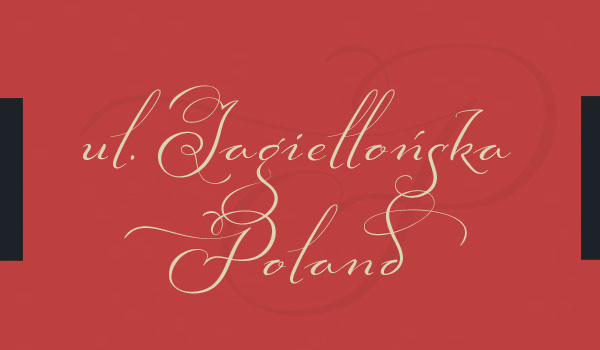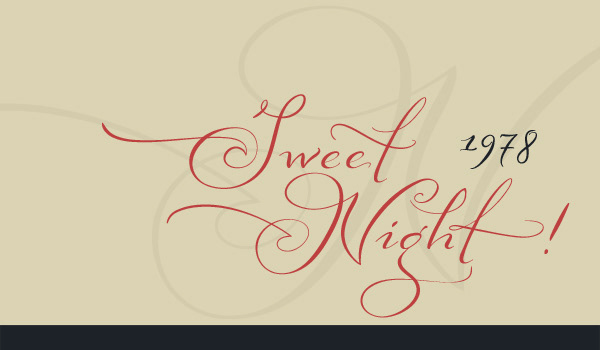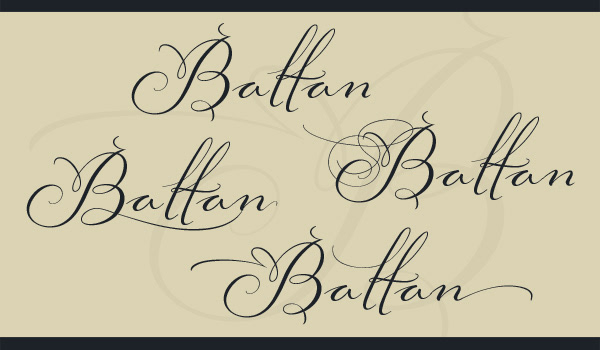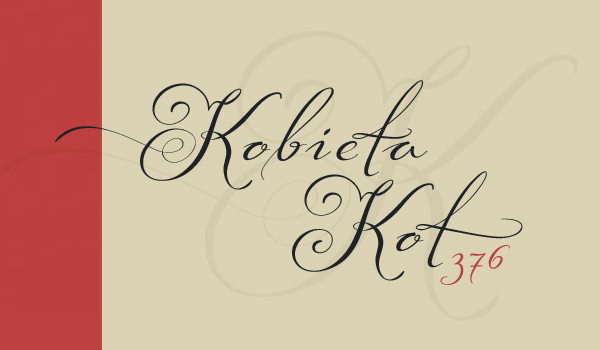
Baltan is a elegant script font face composed by 4 different variations REGULAR, BEGINNINGS, ENDS y SWASH.
Baltan es una elegante tipografia script compuesta de 4 diferentes versiones: REGULAR, INICIOS, TERMINALES y DECORACIONES.